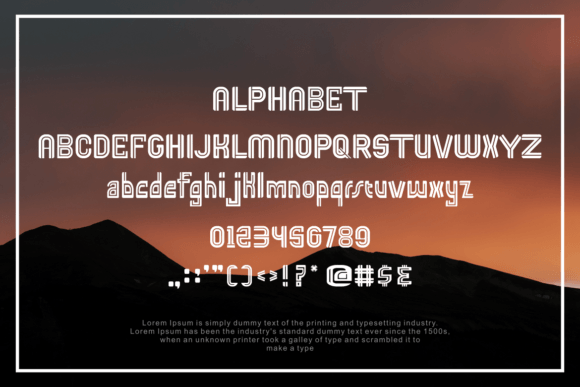
**AHWA HASYU Font** – Elevate Your Design with a Modern Bold Display Font
In the realm of typography, fonts play a pivotal role in shaping the visual identity of a brand. For designers and crafters seeking a bold and authentic display font, **AHWA HASYU Font** emerges as an exceptional choice. This modern font is not just a typographical element; it’s a statement piece that can elevate any branding project to new heights. Whether you’re working on a logo, t-shirt printing, esports, or any other creative endeavor, **AHWA HASYU Font** is designed to make your designs stand out.
The Versatility of **AHWA HASYU Font**
One of the key advantages of **AHWA HASYU Font** is its versatility. This font is not limited to a specific context or industry. Its bold and authentic style makes it suitable for a wide range of applications. Here are some of the areas where **AHWA HASYU Font** truly shines:
- Logo Design: For businesses looking to create a memorable brand logo, **AHWA HASYU Font** offers the perfect blend of modernity and boldness. Its unique characters can help your logo stand out in a crowded market.
- T-Shirt Printing: Designers looking for a font that will make their t-shirt designs pop will find **AHWA HASYU Font** to be an excellent choice. Its clarity and impact ensure that your designs look great on both light and dark backgrounds.
- Esports and Gaming: The esports and gaming industries require fonts that exude energy, speed, and modernity. **AHWA HASYU Font** fits the bill perfectly, offering a competitive edge to your designs.
- And Many More: Beyond these applications, **AHWA HASYU Font** can be used in various other creative projects such as posters, flyers, social media graphics, and website headers, adding a professional and contemporary touch.
Why Choose **AHWA HASYU Font**?
Choosing **AHWA HASYU Font** for your design projects comes with several benefits:
- Unique and Authentic: The font’s unique design ensures that your projects have a distinct look, setting them apart from the generic and often overused fonts.
- High Readability: Despite its bold nature, **AHWA HASYU Font** maintains high readability, making it effective for use in various contexts, from digital screens to print.
- Easy to Pair: Its versatility extends to pairing well with a variety of other fonts, giving designers the flexibility to experiment with different typography combinations.
Tips for Using **AHWA HASYU Font** Effectively
To maximize the impact of **AHWA HASYU Font** in your designs, consider the following tips:
- Contrast is Key: Use contrasting colors to make your text stand out. **AHWA HASYU Font** looks great in bold colors against a neutral background or vice versa.
- Experiment with Sizes: While the font is bold and impactful, experimenting with different sizes can add depth and hierarchy to your designs.
- Pair it Wisely: Although **AHWA HASYU Font** is versatile, pairing it with complementary fonts can enhance your design’s overall aesthetic. Choose fonts that complement its modern and bold style.
**AHWA HASYU Font** is more than just a display font; it’s a tool for designers and crafters to create impactful and memorable branding projects. Its bold and authentic style, coupled with its versatility, makes it an excellent choice for a wide range of applications. By incorporating **AHWA HASYU Font** into your design arsenal, you’re equipping yourself with the means to elevate your projects and make a lasting impression on your audience.
Whether you’re a professional designer or a DIY enthusiast, **AHWA HASYU Font** offers the perfect combination of modernity, readability, and impact. So, why settle for ordinary when you can make a statement with **AHWA HASYU Font**?